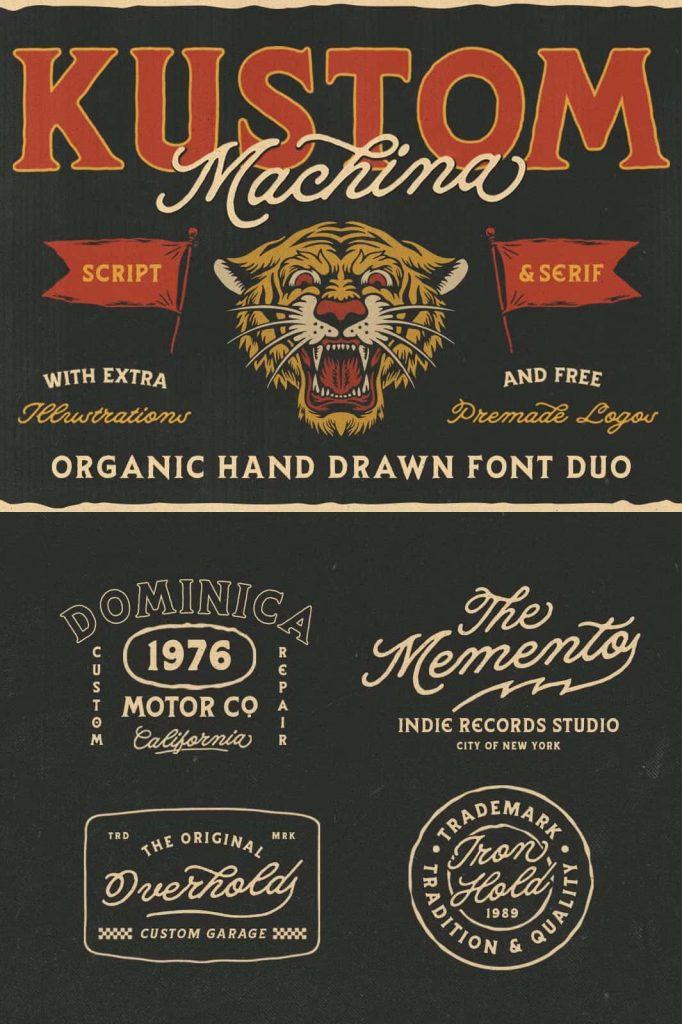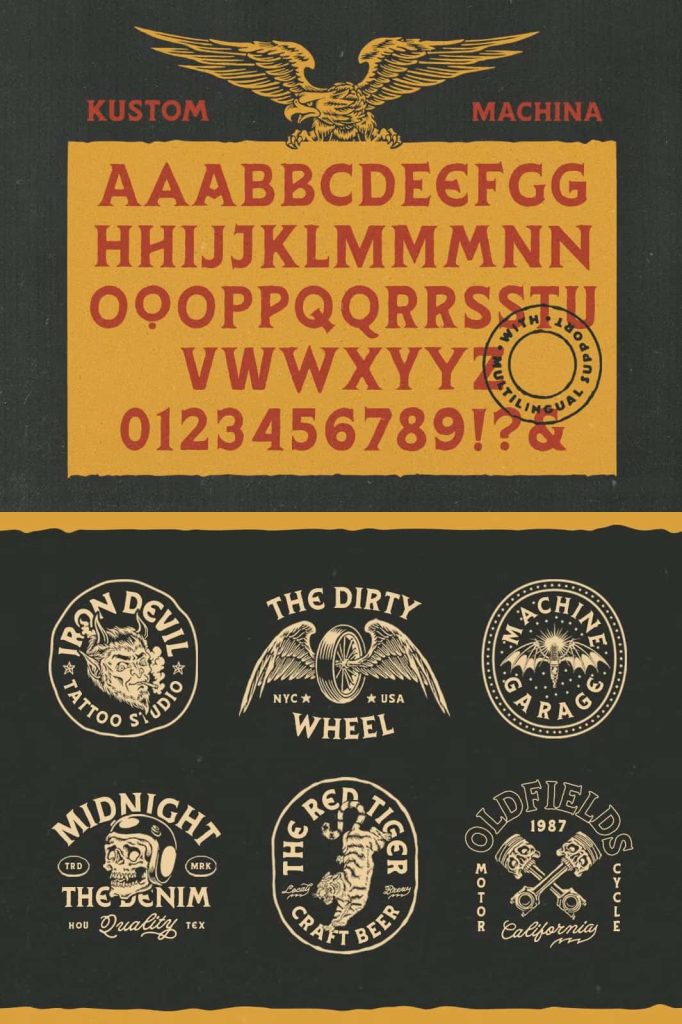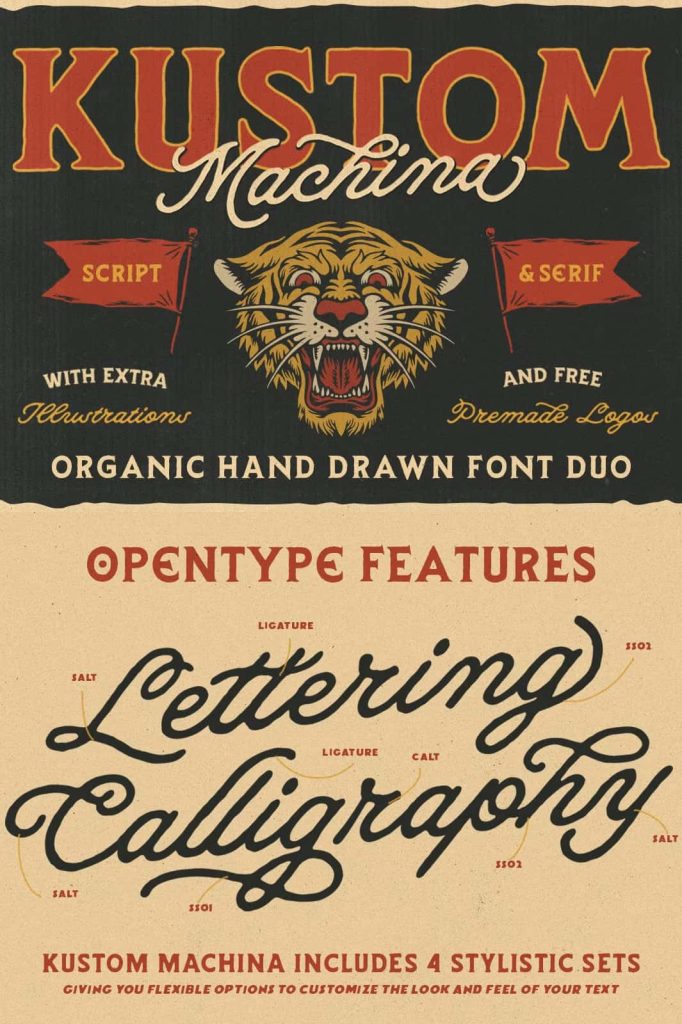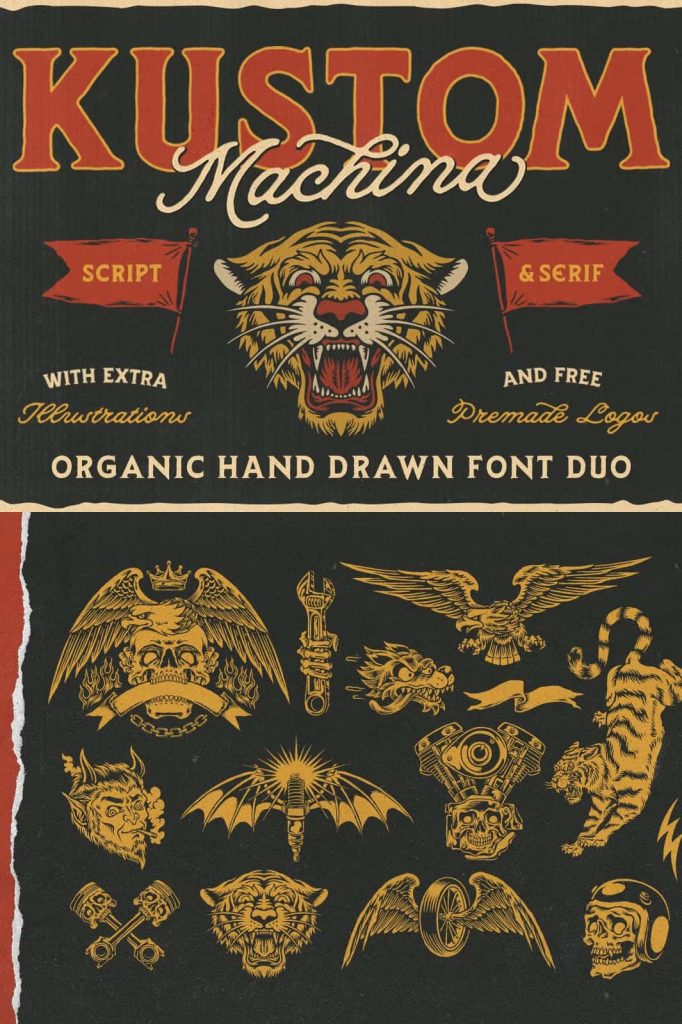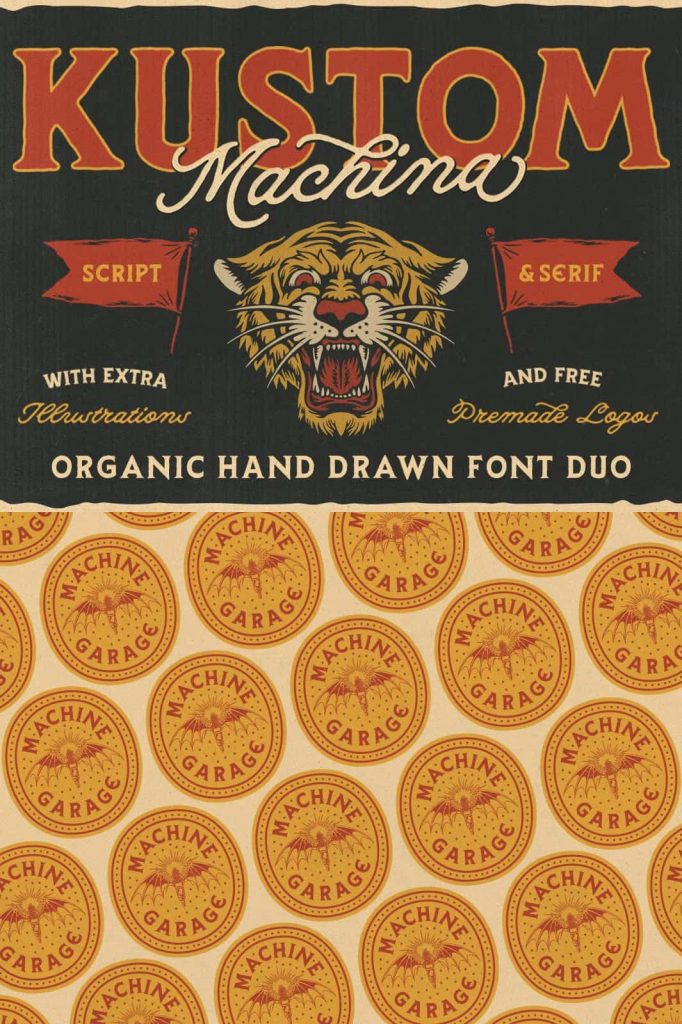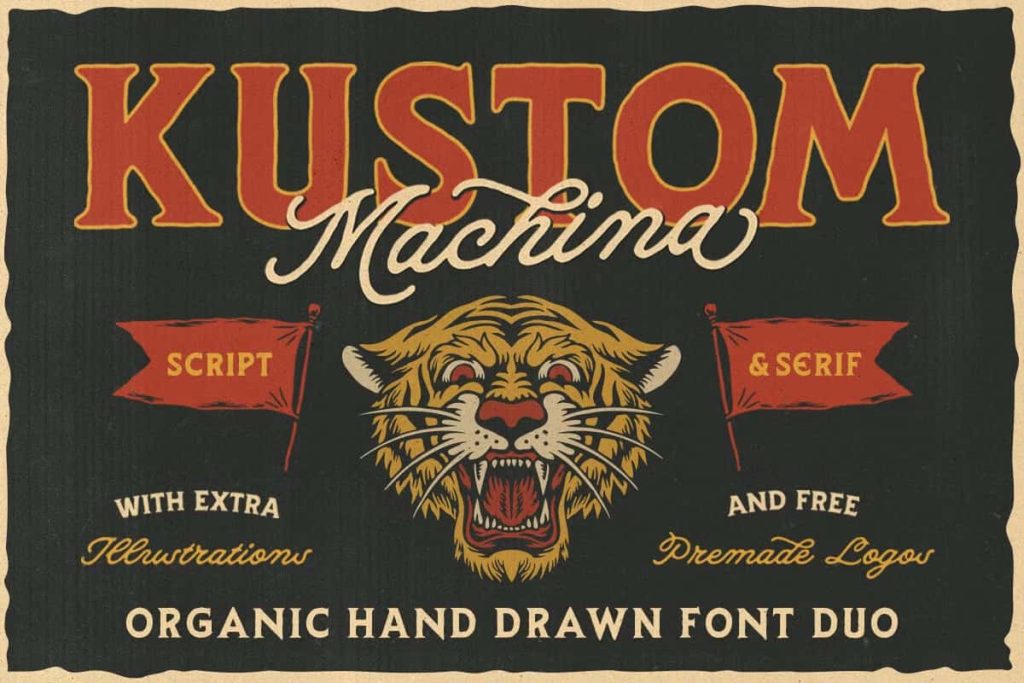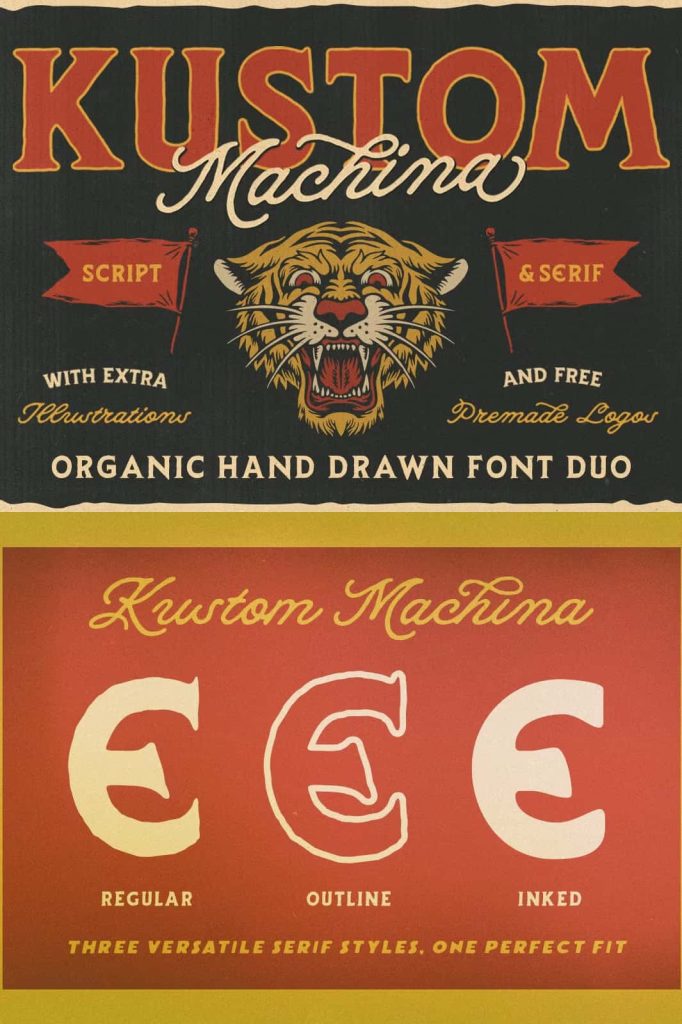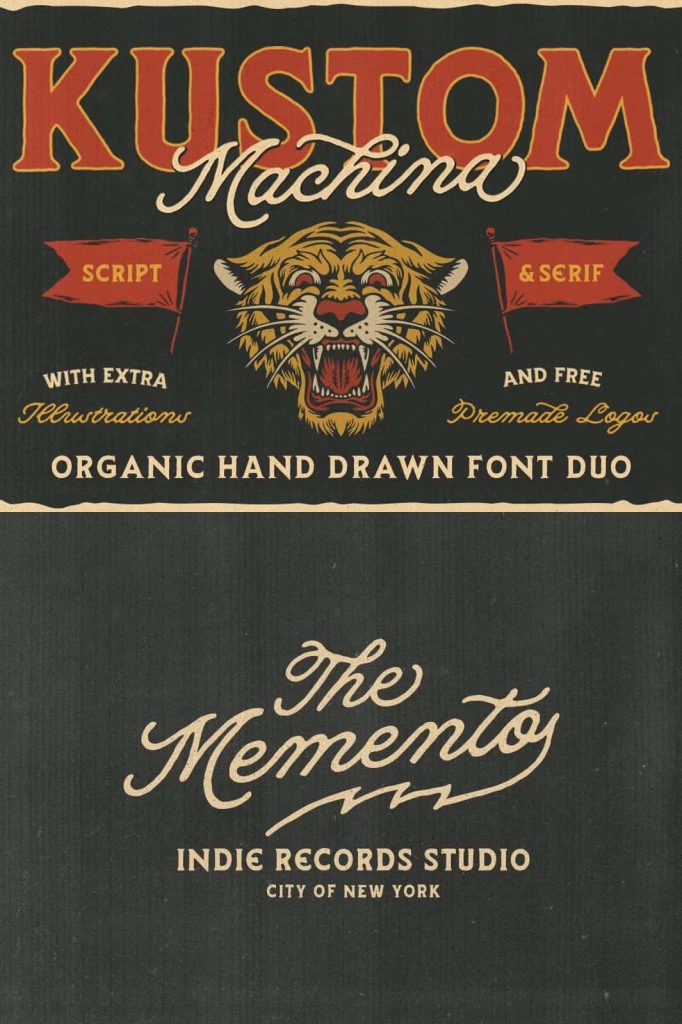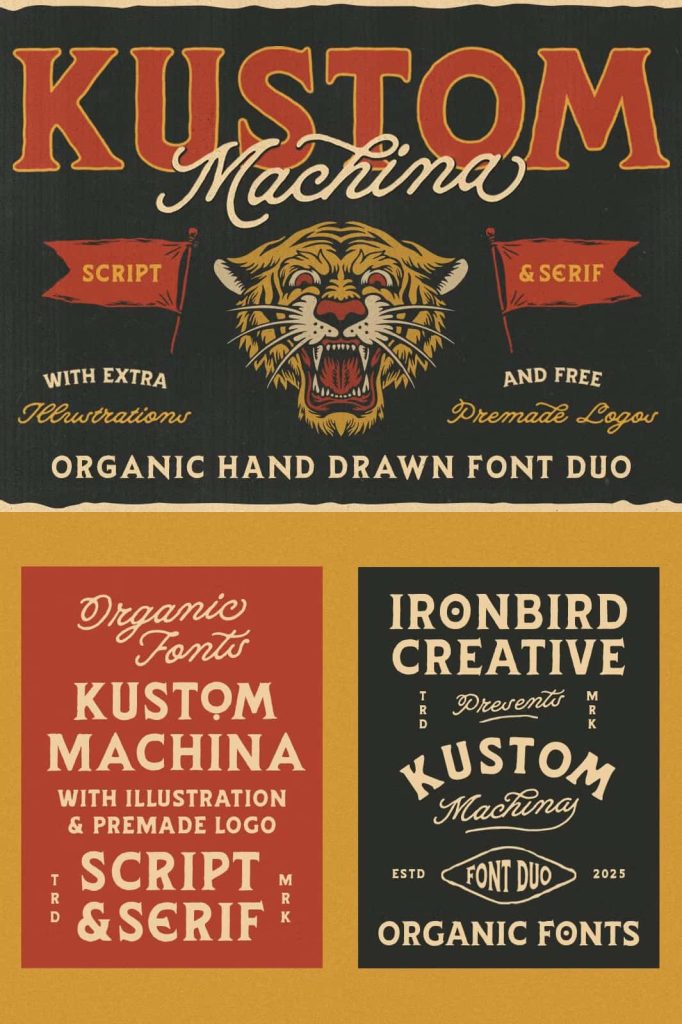
Kustom Machina Font Duo – Handcrafted Serif and Script Typeface for Bold Creative Design
Kustom Machina is a versatile and professionally crafted font duo that combines the timeless strength of a serif typeface with the expressive personality of a handwritten script. Designed to deliver an authentic handcrafted appearance, this font collection gives designers the tools needed to create distinctive visual identities, memorable branding, and eye-catching marketing materials.
More than just a typeface, Kustom Machina includes both Serif and Script styles, along with bonus illustrations and premade logo elements that help speed up the creative process. These additional design assets allow designers, entrepreneurs, and creative professionals to develop complete branding systems with greater efficiency while maintaining a cohesive and professional look.
Whether you are creating product packaging, custom logos, posters, apparel graphics, labels, merchandise, or promotional campaigns, Kustom Machina provides the flexibility and personality needed to make your designs stand out. Its handcrafted aesthetic adds authenticity and character, making it an excellent choice for brands seeking a unique and memorable visual identity.
A Typeface Inspired by Handcrafted Design
Kustom Machina embraces the beauty of handcrafted typography by combining traditional design influences with modern functionality. The font duo captures the spirit of custom lettering, vintage sign painting, and artisan craftsmanship, resulting in a typeface that feels genuine and full of character.
Unlike generic fonts that often appear overly polished or mechanical, Kustom Machina introduces subtle imperfections and artistic details that create a more authentic visual experience. These characteristics help brands communicate originality, creativity, and quality through typography.
The combination of serif and script styles allows designers to create dynamic compositions that balance structure with personality, giving projects a professional yet approachable appearance.
Kustom Machina Serif – Strong, Timeless, and Versatile
The serif component of Kustom Machina delivers strength, clarity, and sophistication. Its carefully crafted letterforms provide a solid typographic foundation that works exceptionally well for headlines, logos, packaging, and brand messaging.
The serif style draws inspiration from classic typography while incorporating contemporary details that enhance its versatility. This balance makes it suitable for both vintage-inspired projects and modern branding applications.
Designers can use the serif font to establish hierarchy, improve readability, and create a strong visual presence across a variety of media. Its bold and confident appearance ensures that key messages remain impactful and memorable.
Best Uses for Kustom Machina Serif
- Brand logos and wordmarks
- Product packaging
- Poster headlines
- Marketing materials
- Website banners
- Editorial layouts
- Merchandise branding
Kustom Machina Script – Expressive and Full of Character
Complementing the serif style is the expressive Kustom Machina Script. This handwritten font introduces movement, personality, and artistic flair to typography compositions. Its flowing strokes and handcrafted details create a natural appearance that feels authentic and engaging.
The script font works beautifully for signatures, taglines, labels, decorative typography, and branding accents. It adds warmth and individuality to designs while maintaining excellent readability.
When paired with the serif font, the script style creates striking contrast that enhances visual interest and strengthens overall design impact. This combination allows designers to build sophisticated layouts that feel both professional and creative.
Bonus Illustrations and Premade Logos Included
One of the most valuable features of Kustom Machina is the inclusion of bonus illustrations and premade logo designs. These additional assets help streamline workflows and provide inspiration for creative projects.
Designers can use the included illustrations to enhance branding materials, packaging designs, merchandise, and promotional graphics. The premade logos serve as a strong starting point for creating custom brand identities, saving time while maintaining a professional appearance.
These bonus elements make Kustom Machina more than a font collection. It becomes a complete creative toolkit that supports both beginners and experienced designers in developing polished visual solutions.
Included Creative Assets
- Serif font style
- Script font style
- Bonus illustrations
- Premade logo templates
- Branding-ready design elements
- Versatile typography combinations
Perfect for Branding and Logo Design
Strong branding begins with strong typography, and Kustom Machina provides all the elements needed to create memorable brand identities. The combination of structured serif forms and expressive script lettering allows businesses to communicate both professionalism and personality.
For designers, entrepreneurs, and creative professionals seeking a font duo that offers personality, flexibility, and professional quality, Kustom Machina is an exceptional choice. Its combination of serif elegance, script expression, and bonus creative assets makes it a powerful addition to any design library.